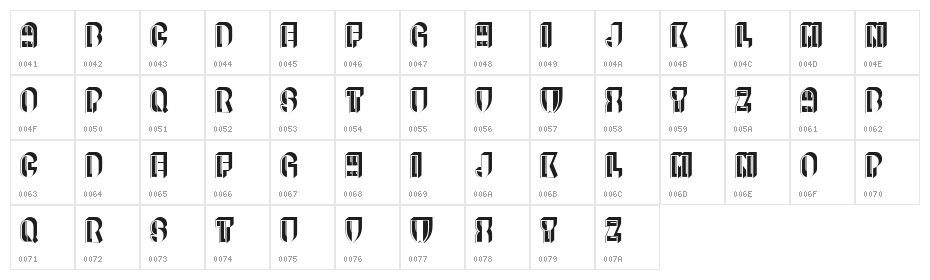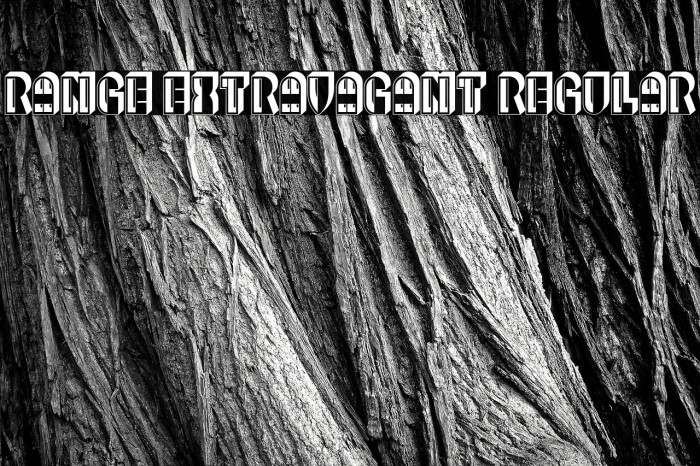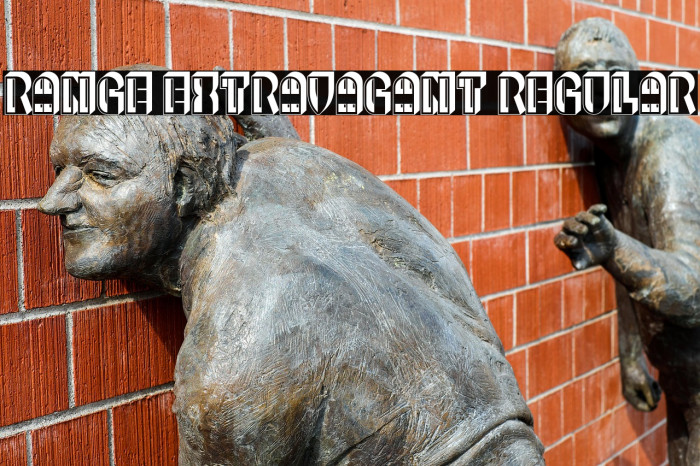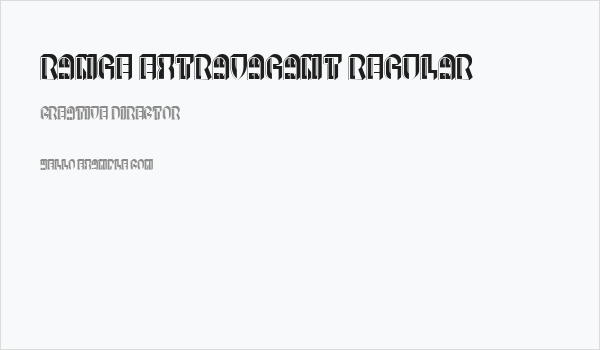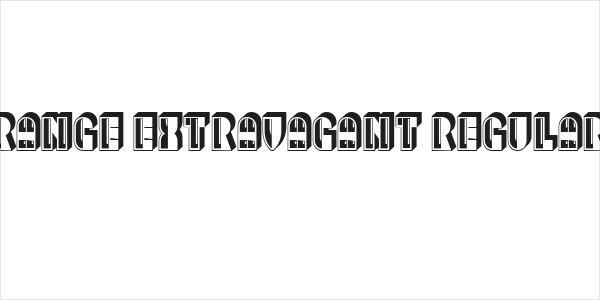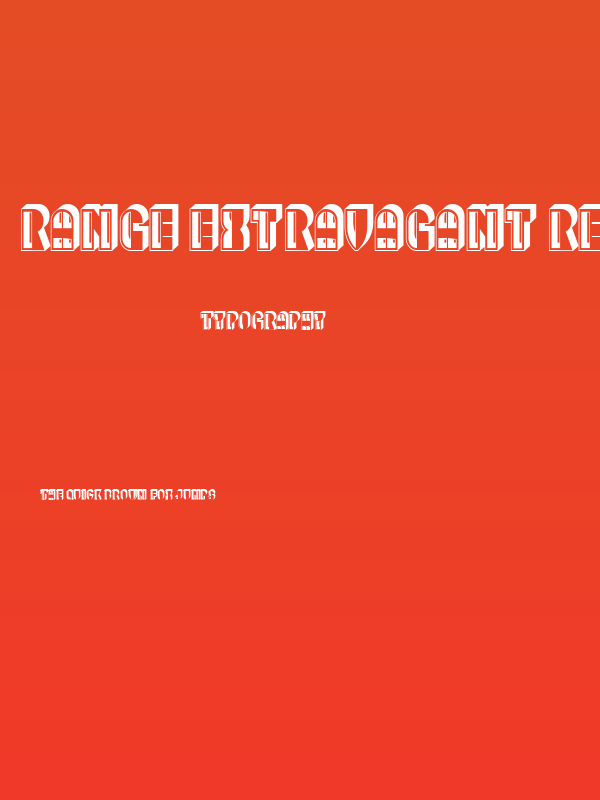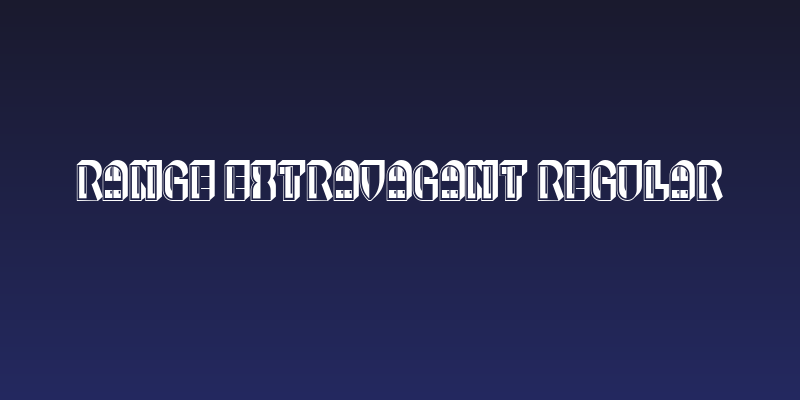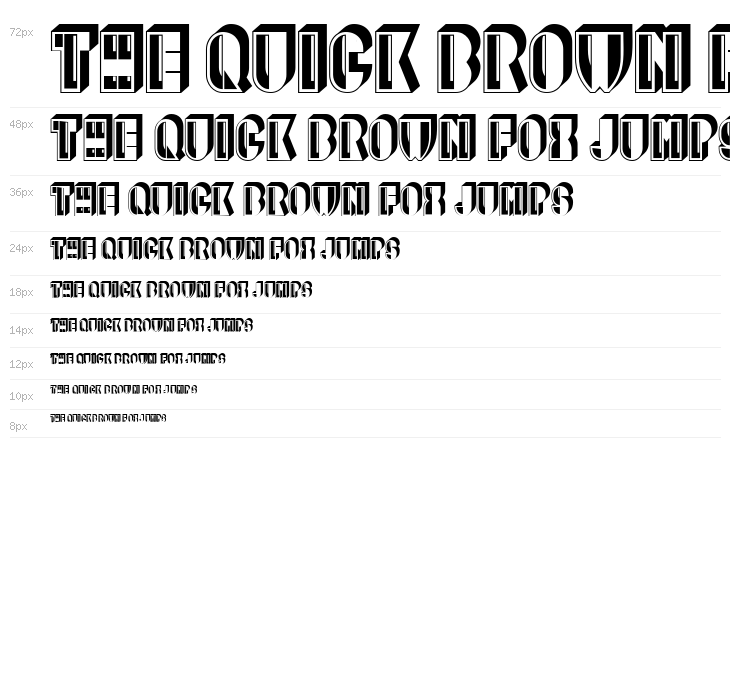
Range Extravagant Regular Font
Range Extravagant Regular Description
This font features a bold, decorative style with a three-dimensional appearance. The characters are designed with a strong geometric influence, incorporating sharp angles and thick lines that create a sense of depth and structure. The use of negative space within the letters adds a unique visual interest, making each character stand out distinctly. The uppercase letters are particularly striking, with a blocky, robust form that commands attention. This font is well-suited for projects that require a dramatic and eye-catching typeface, such as posters, headlines, or branding materials. Its distinctive style makes it ideal for creative and artistic applications where a bold statement is desired.
| Overall Style | Modern, Decorative |
| Proposed Projects | Ideal for posters, headlines, branding, and creative projects requiring a bold statement. |